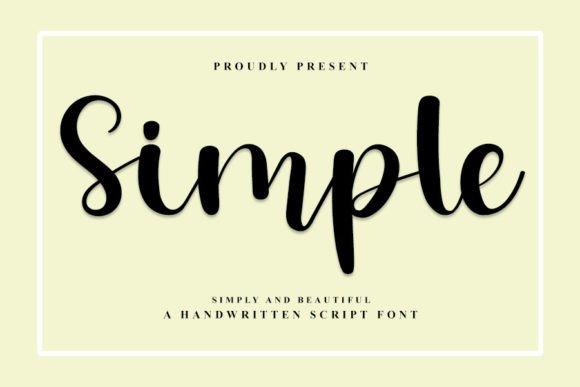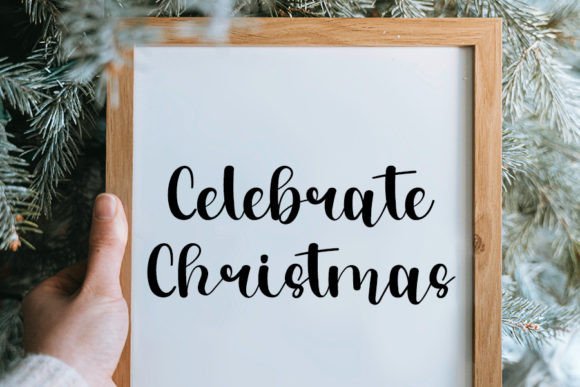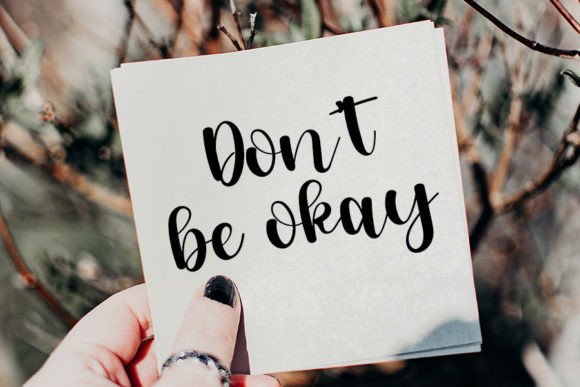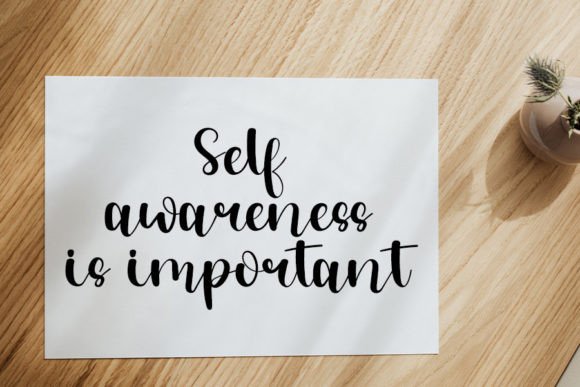
Simple Font
About Simple Font
Simple font is a neat and beautiful handwritten typeface that brings an elegant touch to your creative projects. Its distinct and timeless style makes it a perfect choice for anyone looking to add sophistication and warmth to their designs. Whether you are working on logos, invitations, branding, or social media content, Simple font enhances your work with its graceful charm.
Elegant and Timeless Handwriting Style
Simple font captures the essence of classic handwriting with a modern twist. Its clean lines and balanced letterforms create an elegant appearance that fits seamlessly into a variety of design styles. This timeless quality means your projects will retain a refined and polished look for years to come.
Versatile for a Wide Range of Projects
The versatility of Simple font makes it suitable for multiple creative applications. Use it for wedding invitations to add a delicate, personal feel or for branding projects where a subtle yet memorable script is needed. It also works well in digital content, including social media graphics and blog headers, where elegance is key.
Additionally, Simple font’s readability ensures that it performs well even in smaller sizes. This flexibility allows you to use it for both headings and body text, making it a valuable addition to any designer’s toolkit.
Adds Personality and Warmth
Beyond its beauty, Simple font adds a sense of personality and warmth to your designs. The handwritten style evokes friendliness and approachability, helping you connect with your audience on a more personal level. It’s an excellent choice for projects that require a human touch, such as greeting cards, quotes, and personal branding.
Easy to Customize
Simple font comes with stylistic alternates and ligatures that let you customize your text for greater impact. These features enable you to create unique typography that stands out while maintaining harmony and consistency in your design.
Perfect for Both Personal and Professional Use
Whether you’re creating personal projects or professional designs, Simple font offers the perfect balance of elegance and simplicity. It works wonderfully for everything from party invitations to corporate branding, adding a sophisticated flair wherever applied.
Simple font is a neat, elegant, and timeless handwritten typeface that enhances your favorite projects with style and grace. Its versatility, readability, and warm personality make it an essential tool for designers seeking to create spectacular and lasting designs. Add Simple font to your collection and elevate your creative work effortlessly.